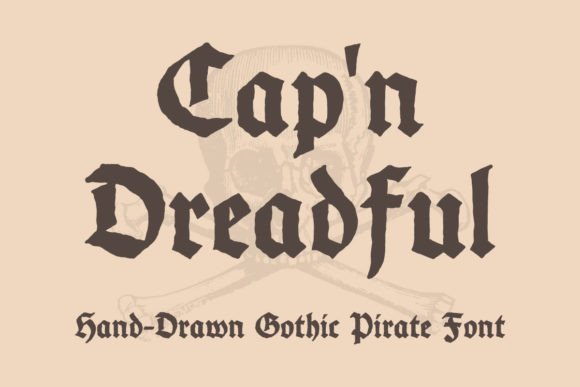
Looking for the best fonts for vintage logos? Look no further than Cap’n Dreadful Font, a stunning addition to your font collection. Created by Happy Squatch Studios, this vintage and gothic handwritten font combines old-world elegance with dark mystique to create a captivating aesthetic that is sure to draw in your audience.
With its intricate, swirling letters, Cap’n Dreadful Font evokes the ornate script of medieval manuscripts, while its sharp, angular edges give a hint of danger and intrigue. Whether you're designing a vintage logo, an elegant wedding invitation, or a gothic-themed poster, this font is perfect for adding a touch of class and sophistication to your design.
But Cap’n Dreadful Font isn't just beautiful - it's also highly versatile. Use it to create a range of designs, from vintage-inspired logos and posters to elegant wedding invitations and product packaging. Its bold, eye-catching style is sure to make your design stand out from the crowd.